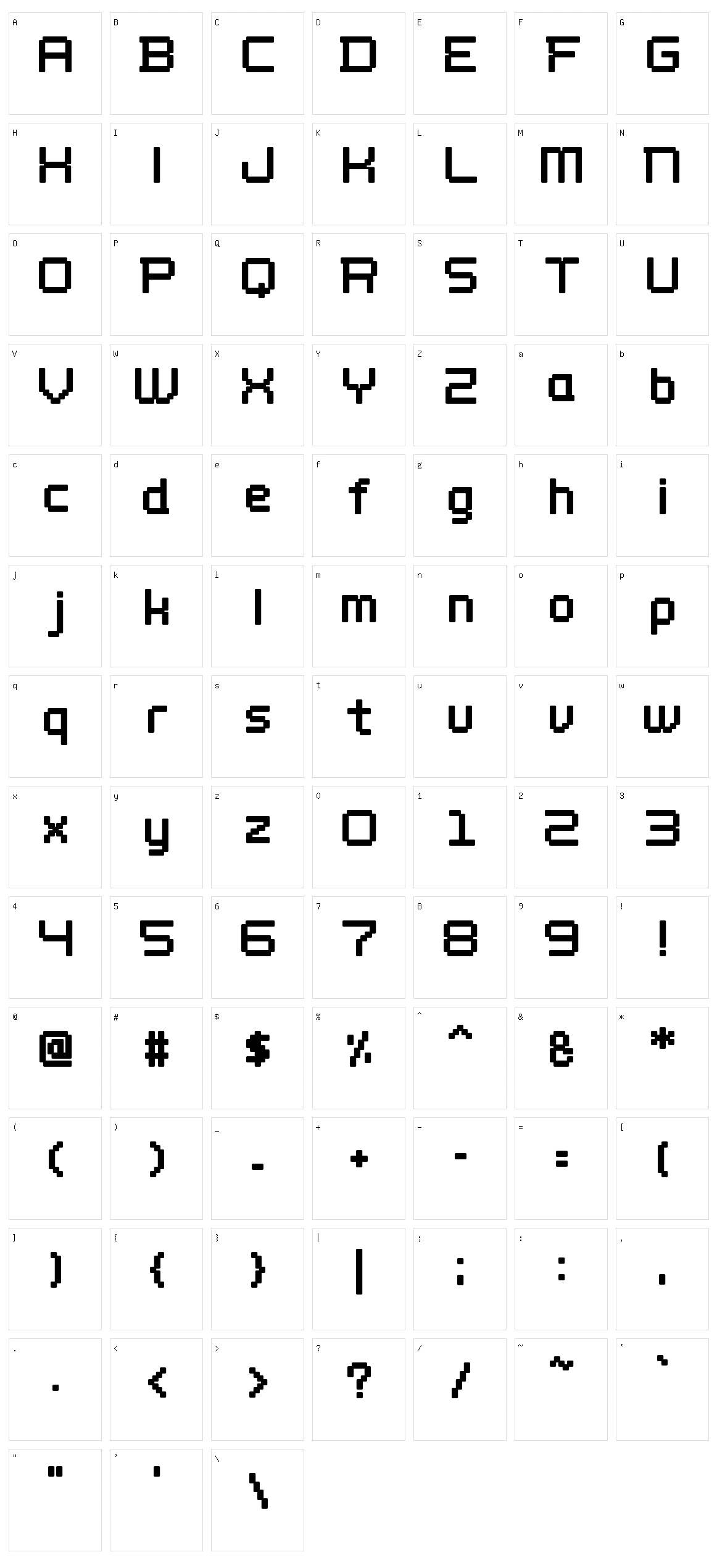
Wellbutrin
Designed by: Apostrophic Labs
Karen Clemens lives in Bruges, Belgium. She's 34 years old, has 4 kids, employs 14 people in her own design firm, sleeps 3 hours a day, likes bloody steak, and is happier than a clam buried in the sand. She likes to call herself an "expat", which is short for ex-patriot. Karen was born and bread in Vancouver, Canada. She met her husband some 12 years ago, then moved with him to Belgium a couple years later.
The first few letters of Welbutrin didn't look anything like they do now. It originally started as an experiment with bitmaps, where Karen turned a 12 point bitmap version of Helvetica Round into scalable outlines. At 12 points the font was certainly Helvetica Round, but at 70 and above, it looked like a blown-up version of what you see on your cell phone screen. She was impressed by that and asked me to help her out with it. I said no way, but a sample of some of her letters at 130 points gave me an idea: what if the characters were all made of rounded rectangles, like the ones that can so easily be made with the Illustrator tool?
Karen liked the idea. We exchanged grids and started working, at the pace of 2 hours a day. A couple weeks later we realized that the grids we were using were pretty good for weights of over 100 points, but really bad for anything under 70 points. So I regridded and we redrew everything while keeping in mind that we wanted this font to look as good as a rounded techno can at 14 points.